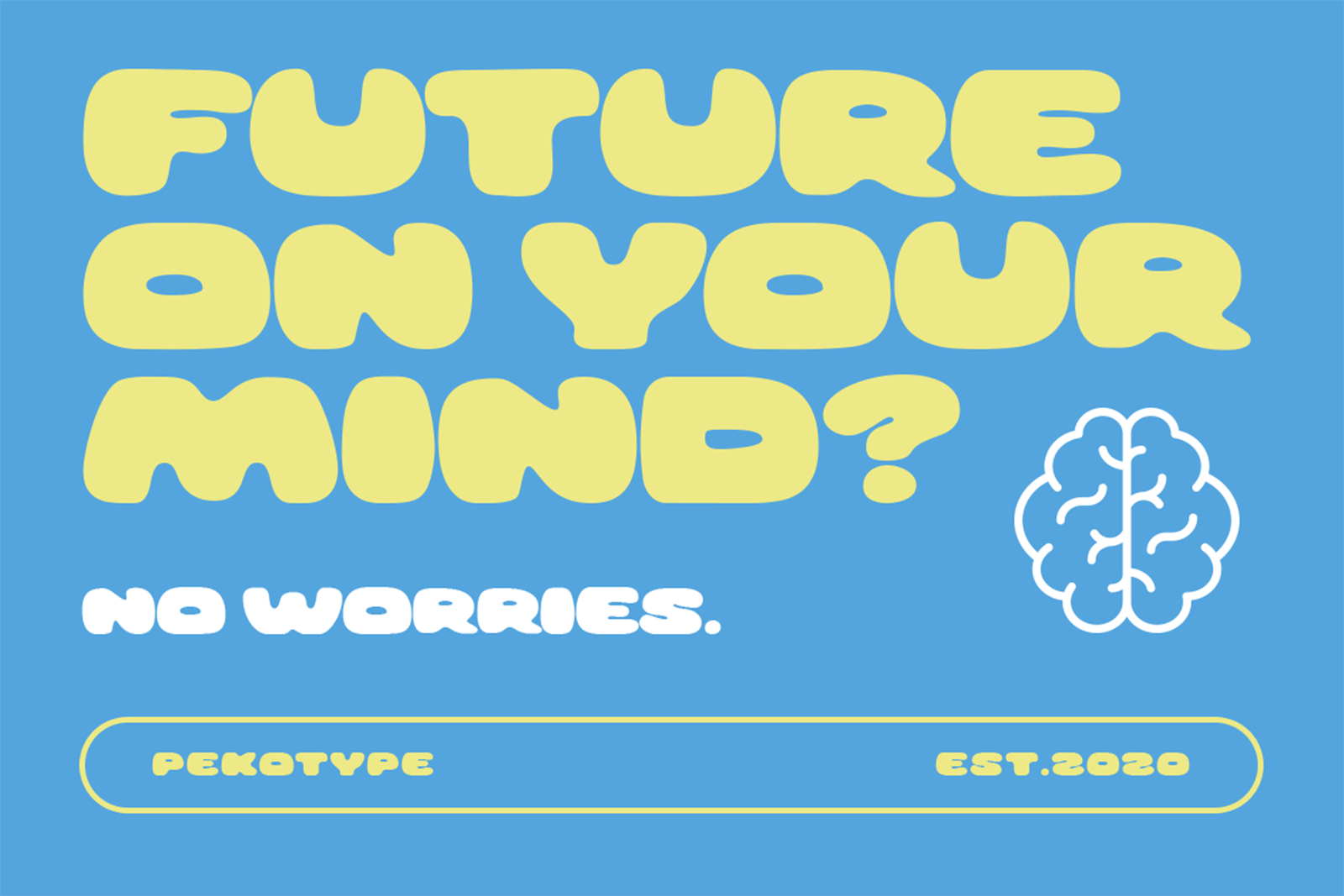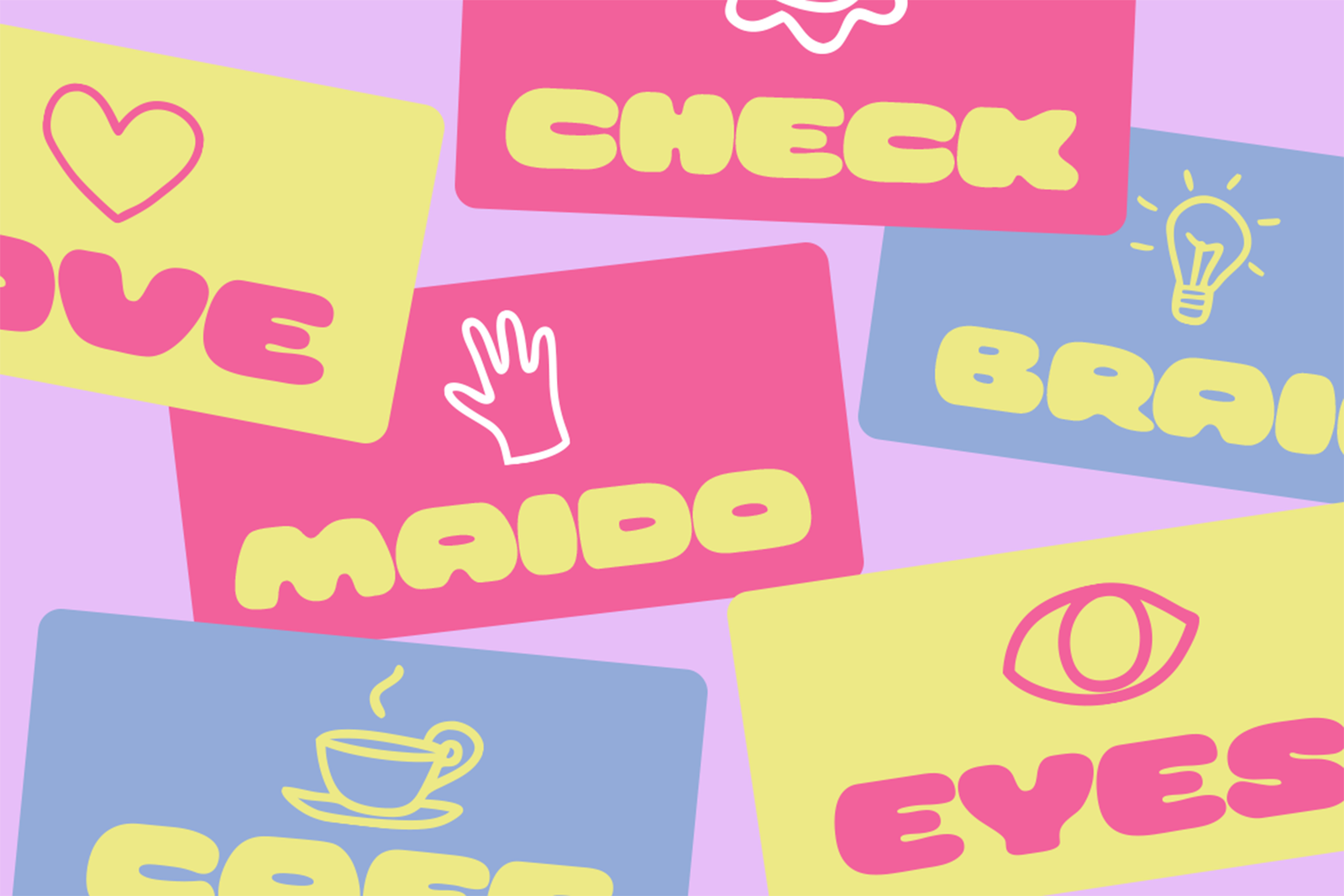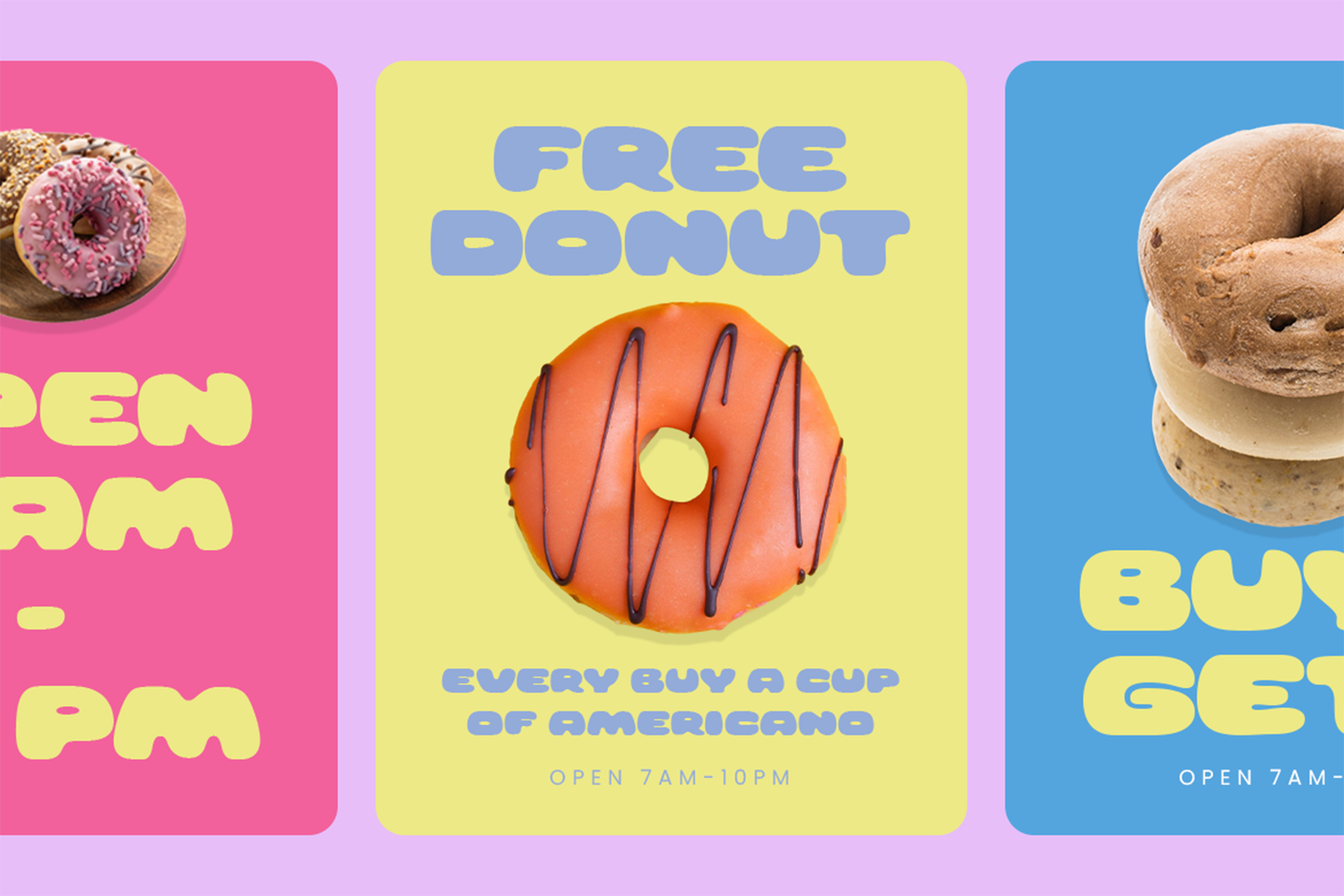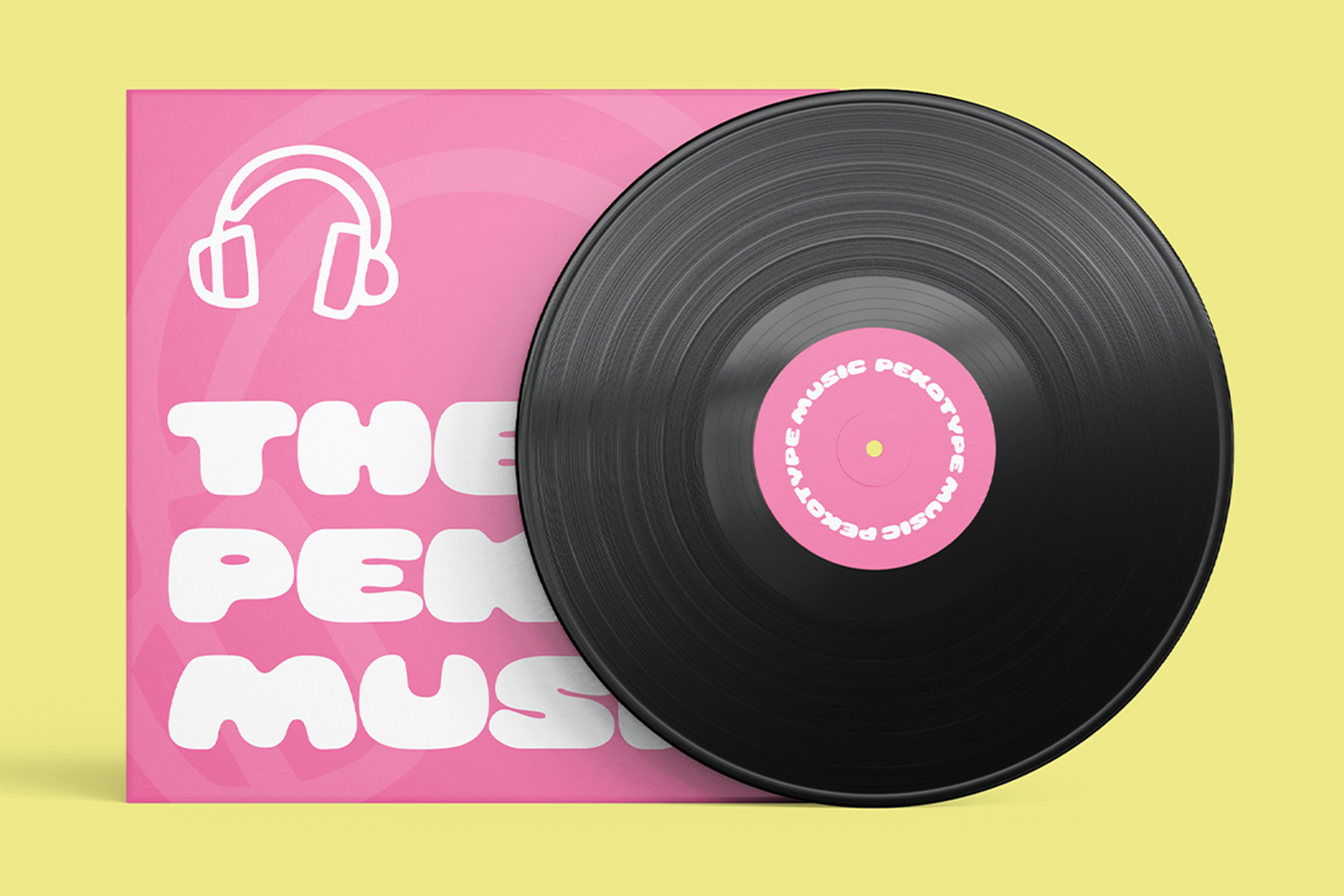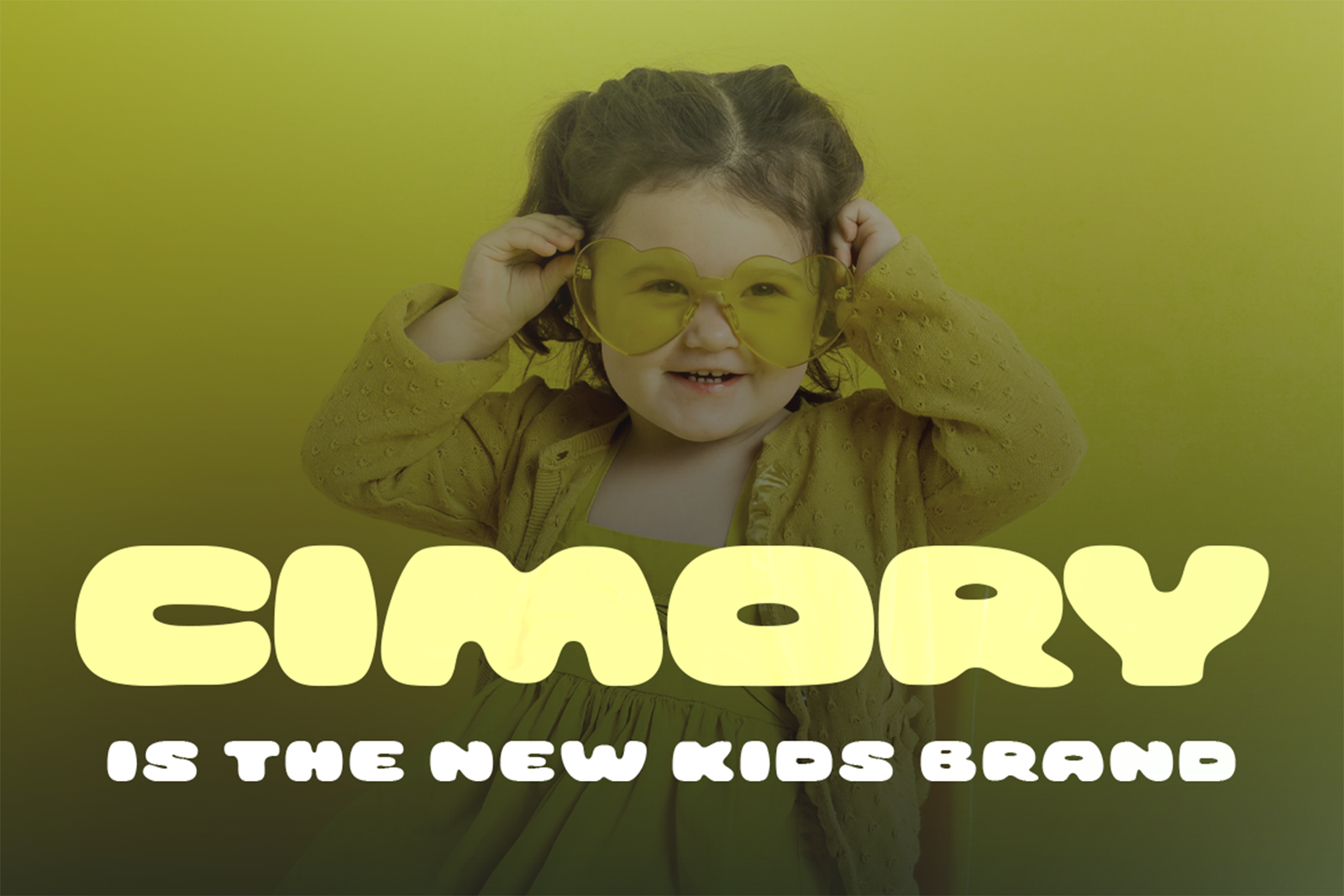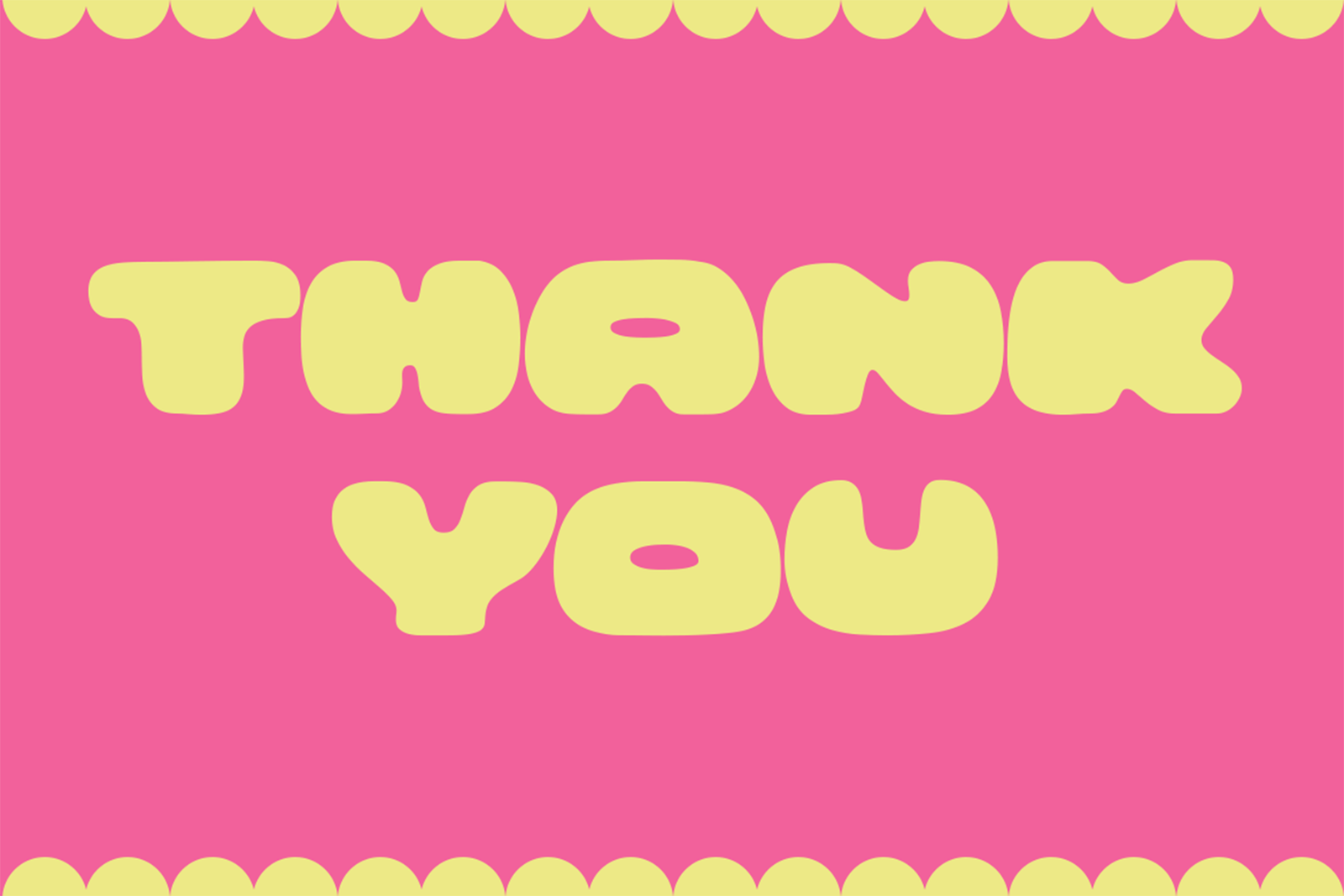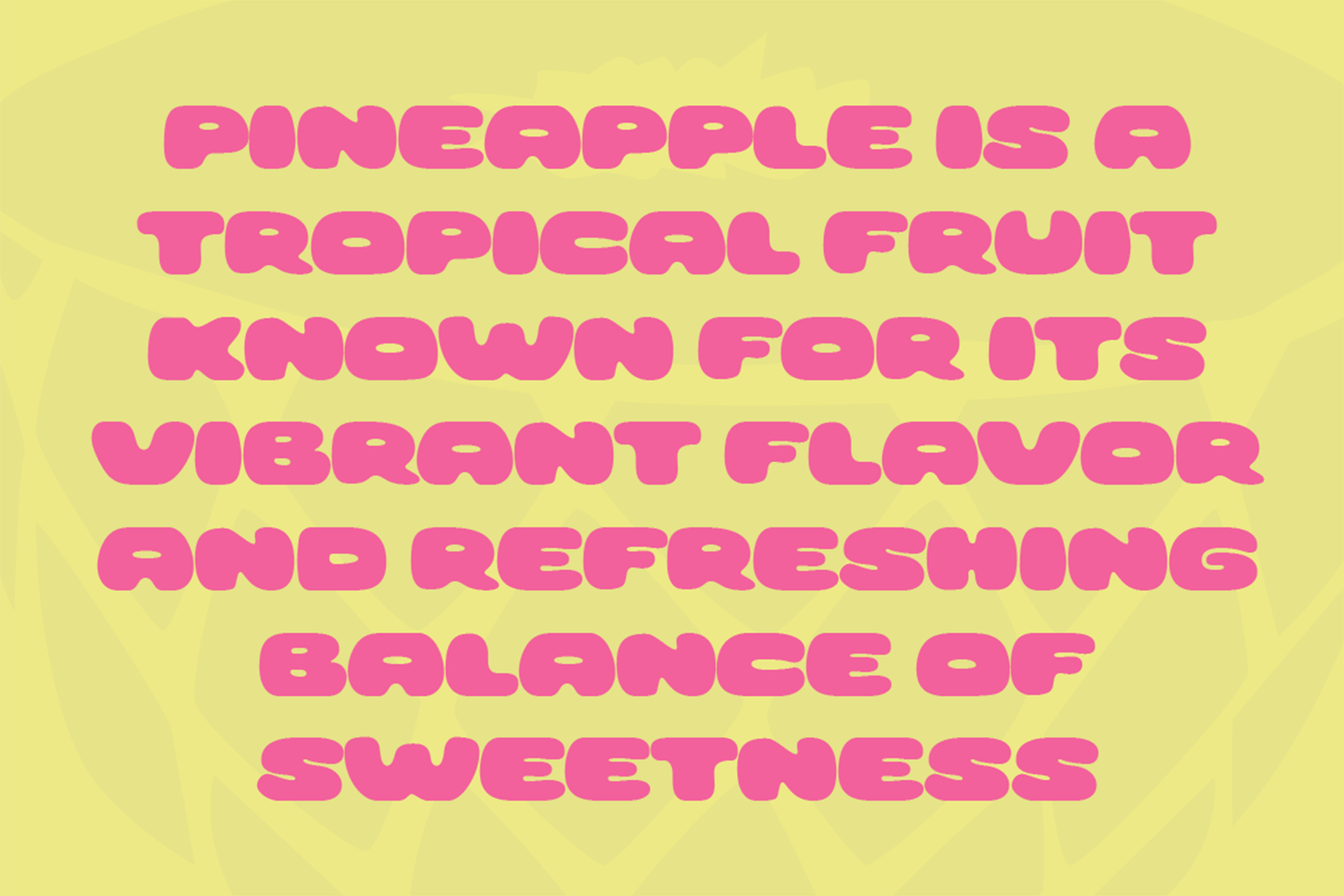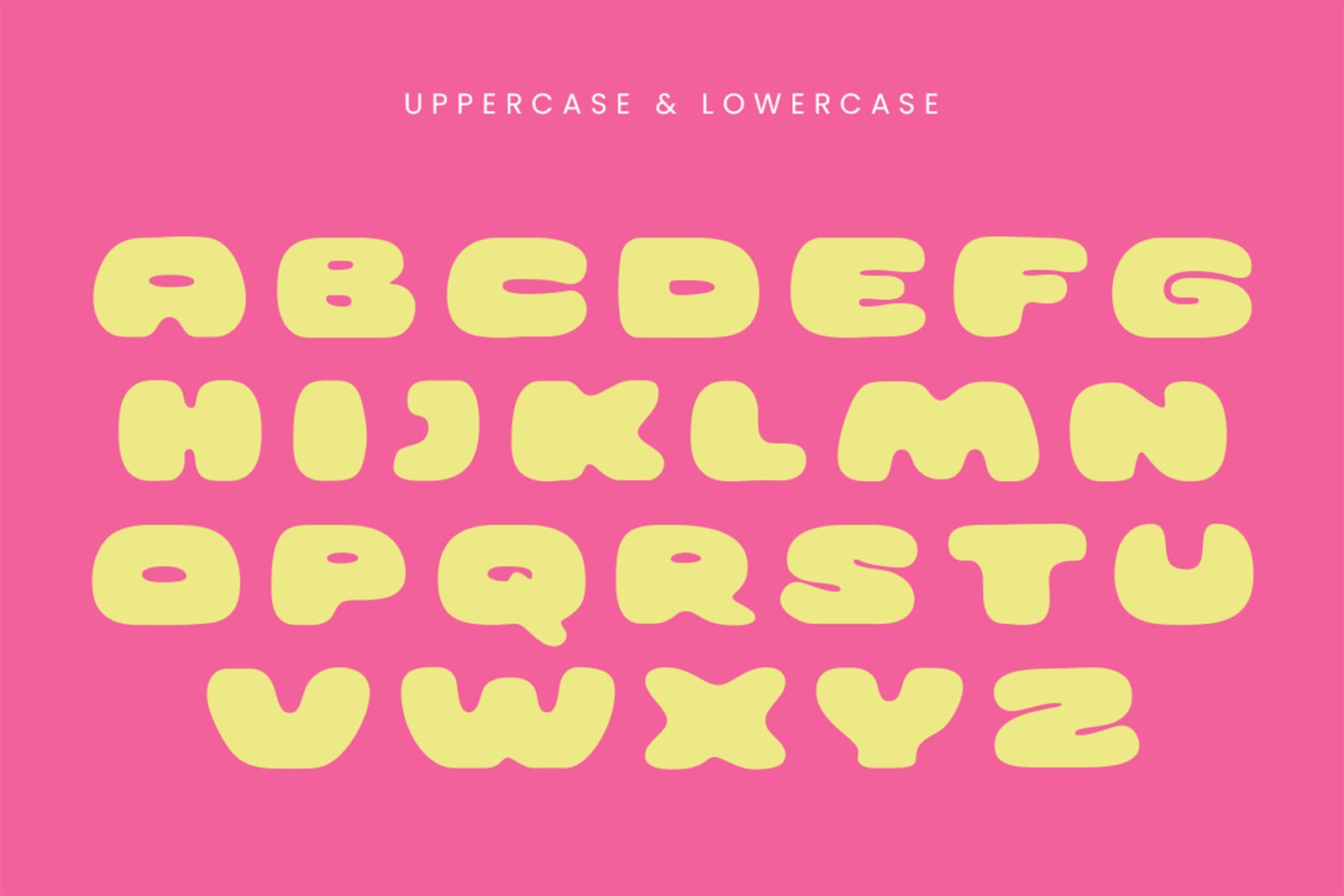
MELLPO Font is a bold rounded display typeface with soft curves and playful shapes. Perfect for branding, logos, packaging, posters, and colorful designs.
MELLPO Font is a bold rounded display typeface designed to bring a fun, cheerful, and friendly personality to creative designs. Featuring soft curves, chunky letterforms, and playful proportions, this font creates a unique visual style that feels modern, sweet, and approachable. The smooth rounded shapes make every word look expressive while maintaining strong readability for various design purposes.
This versatile font is perfect for branding, logos, packaging, posters, social media graphics, children’s projects, food labels, merchandise, and lifestyle designs. This font works beautifully for candy brands, cafés, dessert packaging, kids products, creative campaigns, and colorful promotional materials. Whether you are creating a playful logo, eye-catching headline, product identity, or social media content, this font helps your design feel more memorable and full of personality.
With uppercase and lowercase characters, numbers, symbols, punctuation, and multilingual support, this typeface provides flexibility for different creative needs. Its bold and friendly appearance makes it a great choice for designers who want to create joyful, modern, and distinctive visuals. This font brings a fresh rounded style that adds charm, creativity, and a playful touch to every project across digital and print applications.